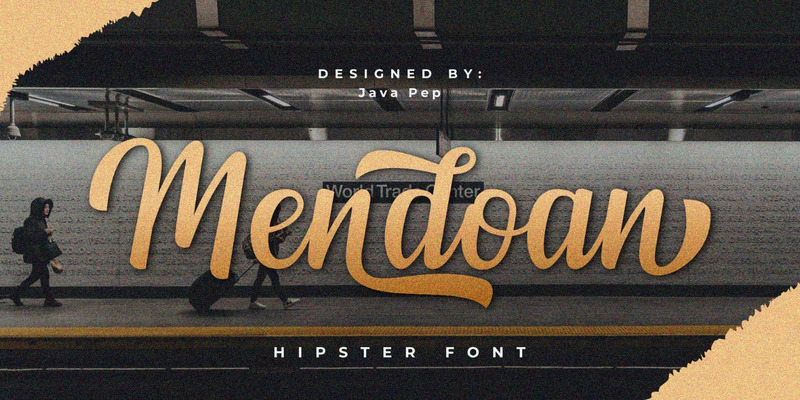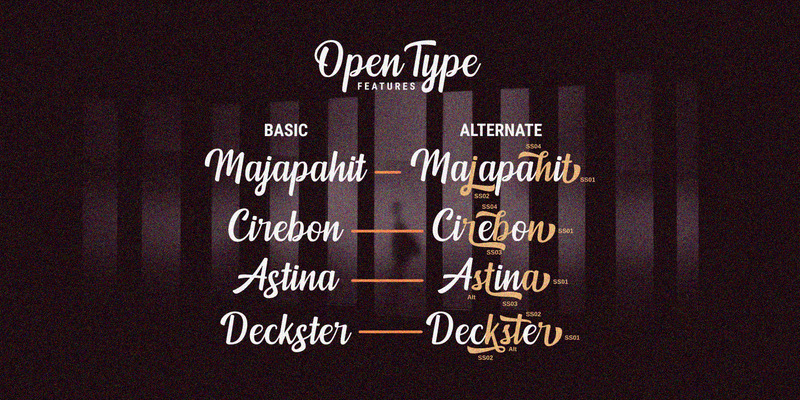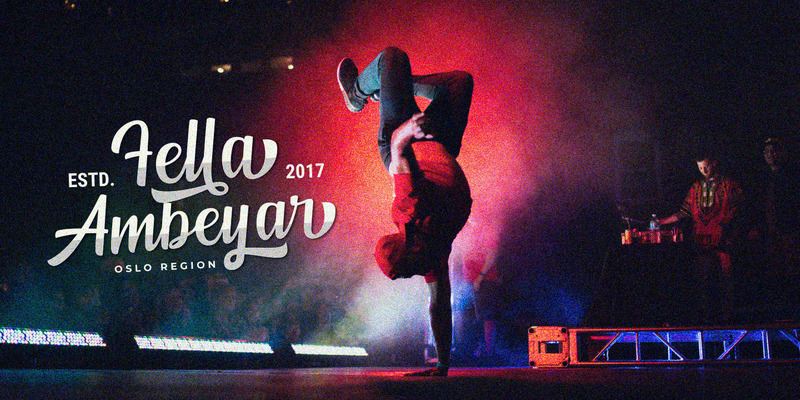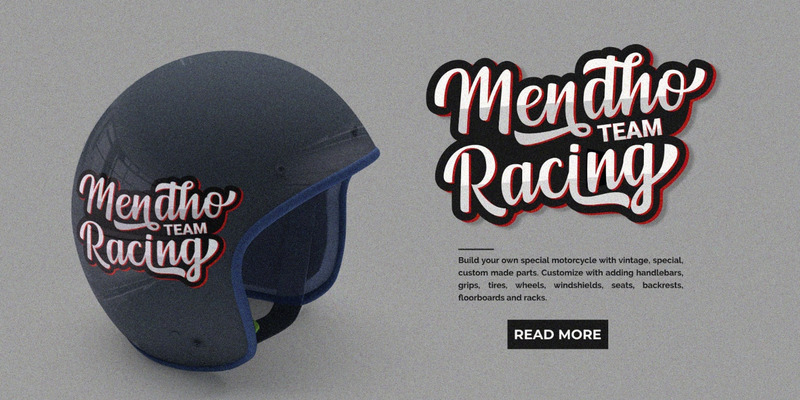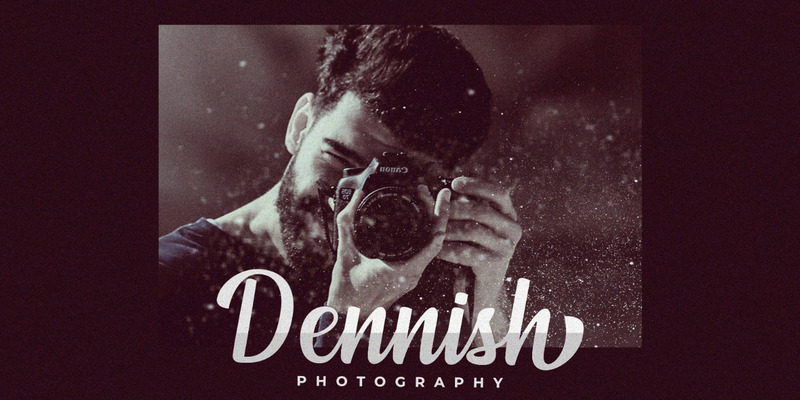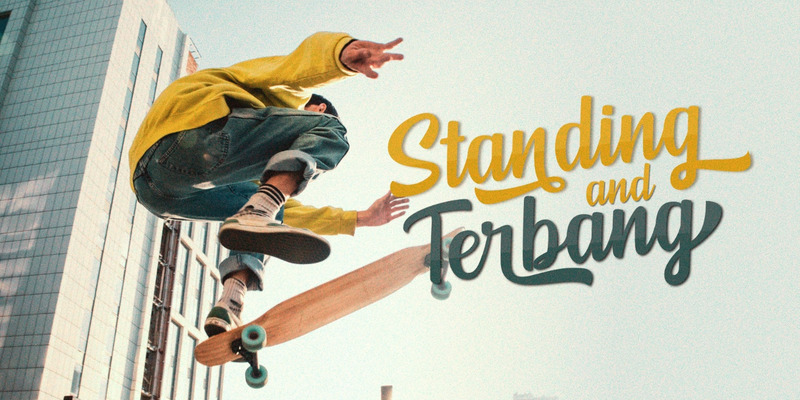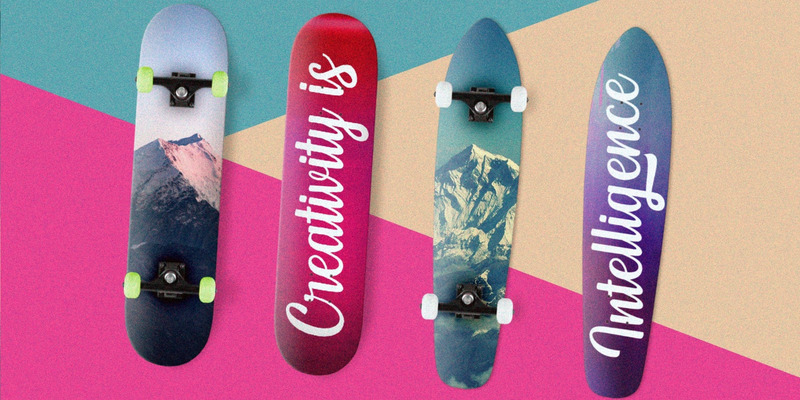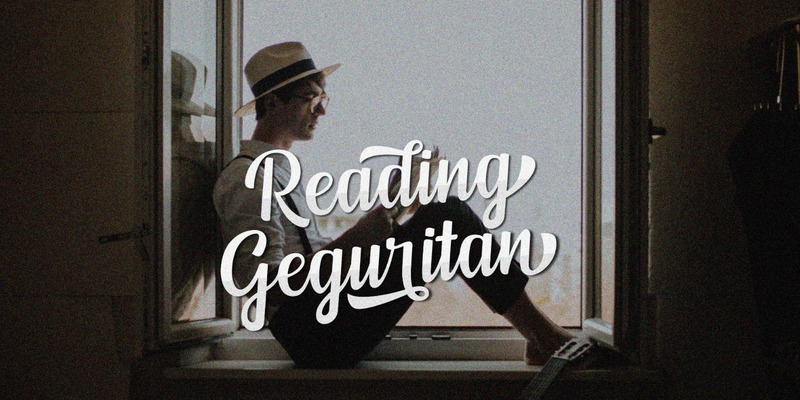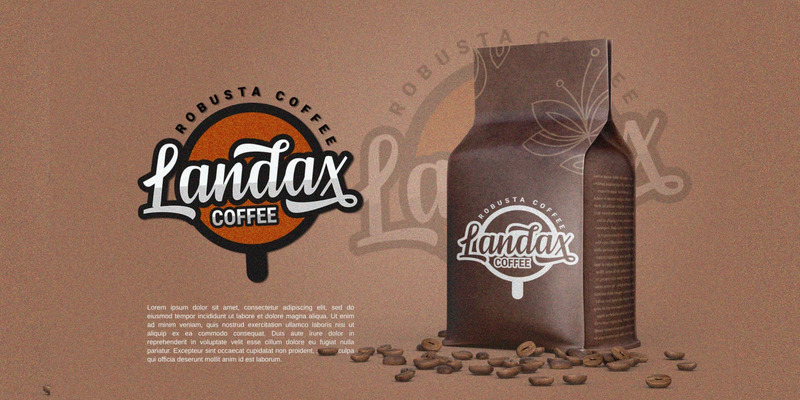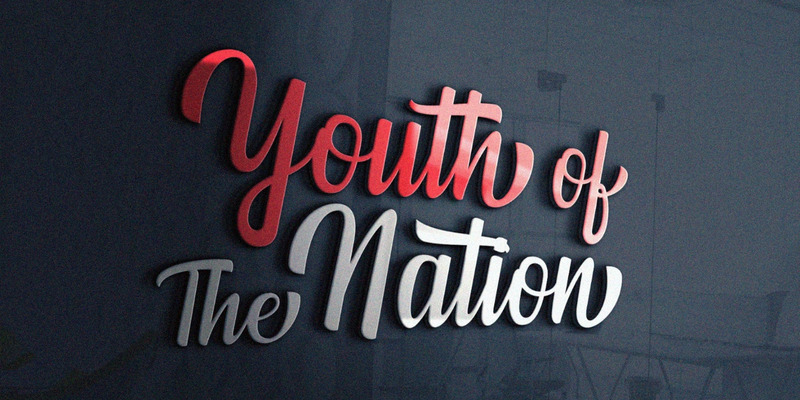
Mendoan Script Font / Pretty Script
Grab it now!!!, our last product in this year. Proudly present Mendoan script font, this font made by inspired by hipster style that brings youth, excitement, art, intelligence, and movement. Mendoan came with OpenType features such as alternate, stylistic alternate, and ligatures. Do magic with Mendoan script.